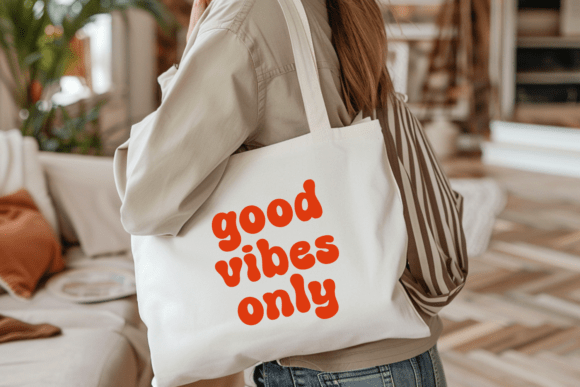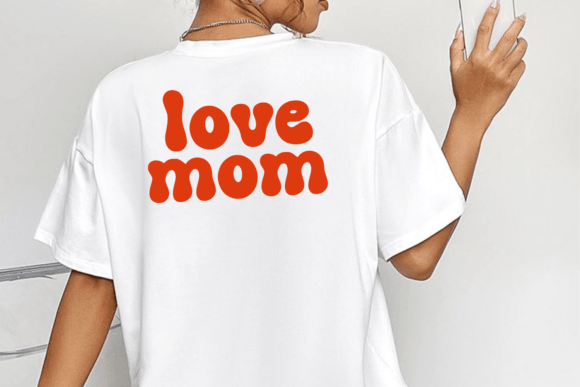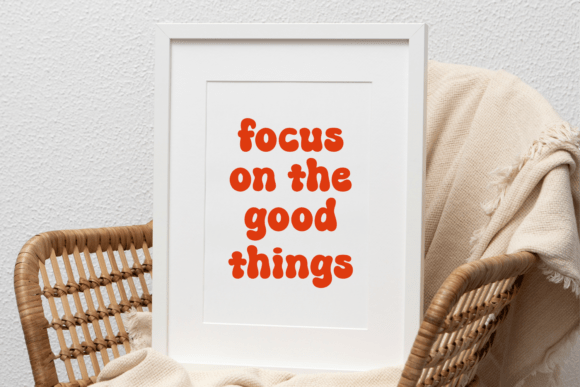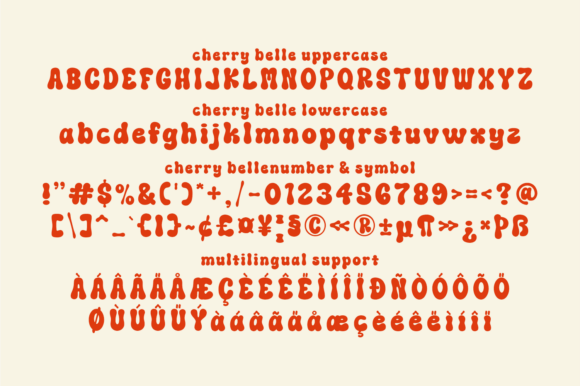
Introduction to Cherry Belle Font
Introducing Cherry Belle, a charming vintage-inspired font that is sure to captivate the viewer’s attention.
Every sweep of its strokes carries an unmatched artistic allure, effortlessly polishing the aesthetic of any project it graces Cherry Belle embodies a high-value asset in the creative world, adding a unique flair to diverse design undertakings – be it logos, brand identities, or craft projects.
Key Features of Cherry Belle Font
Why Choose Cherry Belle Font?
Cherry Belle Font offers exceptional quality and versatility, making it a valuable addition to your design toolkit. Whether you’re creating for personal projects or commercial use, Cherry Belle Font delivers professional results.